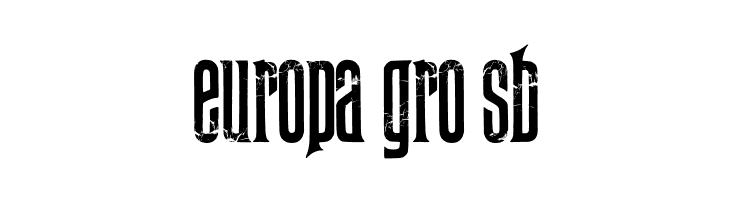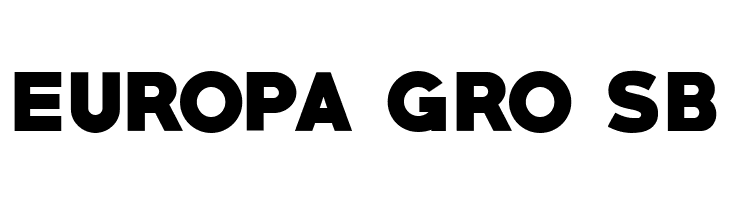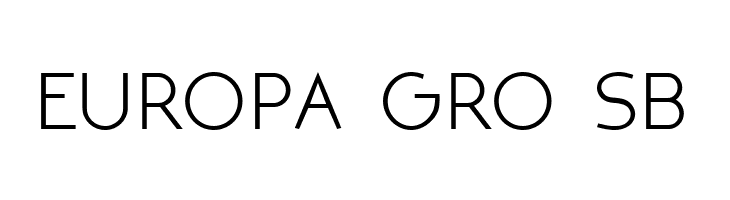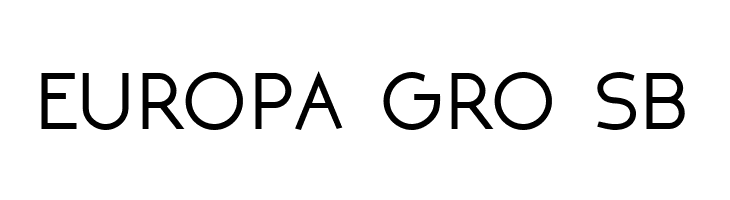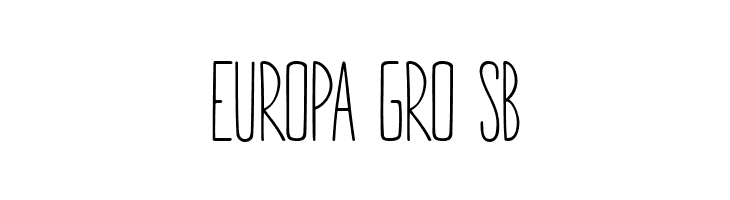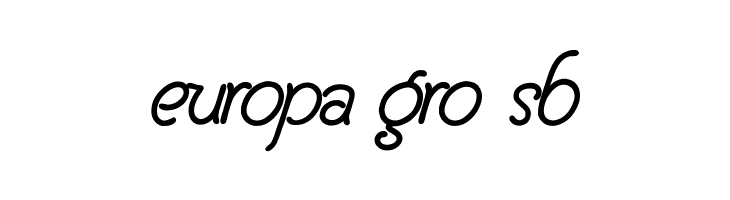
PRIMETIME Regular Font
A bold, geometric font perfect for impactful headlines.
QUARTZO demo Bold Font
A bold, geometric font with high contrast and tight spacing.
Broken Detroit Font
A bold, distressed font with a gritty, urban texture.
Tarantino Font
A bold, distressed font with a vintage, rugged appearance.
NEOTERIC Bold Font
A modern, geometric font with a clean and balanced design.
Above DEMO Regular Font
A modern, geometric typeface with clean lines and balanced spacing.
Strong Glasgow Font
A bold, geometric font with a modern and assertive style.
Midnight Moon Font
A bold, distressed font with a vintage, rugged appearance.
NEOTERIC Font
A modern, geometric sans-serif font with consistent stroke widths and a clean appearance.
MOTOR Font
A bold, distressed font with a rugged, vintage texture.
Delicacy Font
An elegant, flowing script font with smooth, cursive letterforms.
Twisted Stallions Font
A bold, distressed font with a rugged, vintage appearance.
Dust Overhaul Font
A distressed serif font with a vintage, weathered look.
Grunge Overlords Font
A bold, distressed font with a grunge aesthetic and rugged texture.
Diamond Dust Font
A distressed, script-style font with a vintage, textured appearance.
QUARTZO Bold Font
A bold, geometric font with sharp angles and a modern appearance.
STARGAZER demo Bold Font
A tall, narrow font with consistent stroke width and modern elegance.
Strong Glasgow Regular Font
A bold, geometric font with strong, angular lines and a modern aesthetic.
Strong Glasgow DEMO Bold Font
A bold, geometric font with strong lines and a modern aesthetic.
Hidden Archives Font